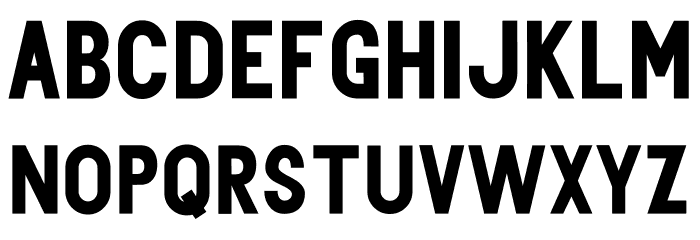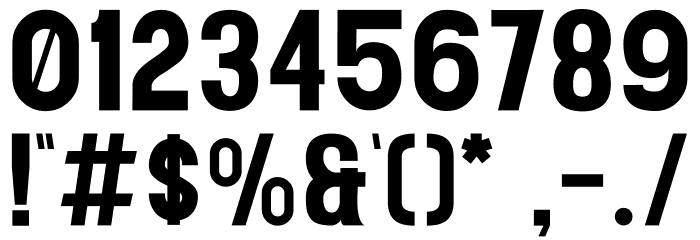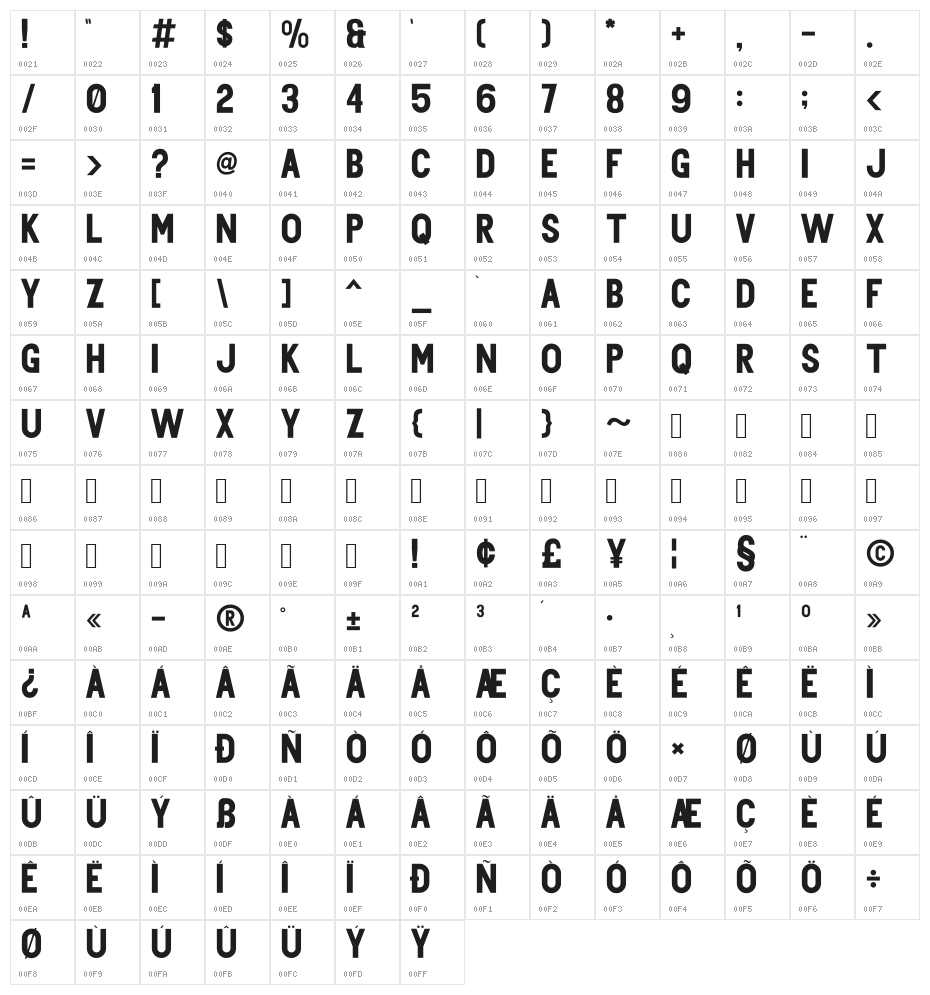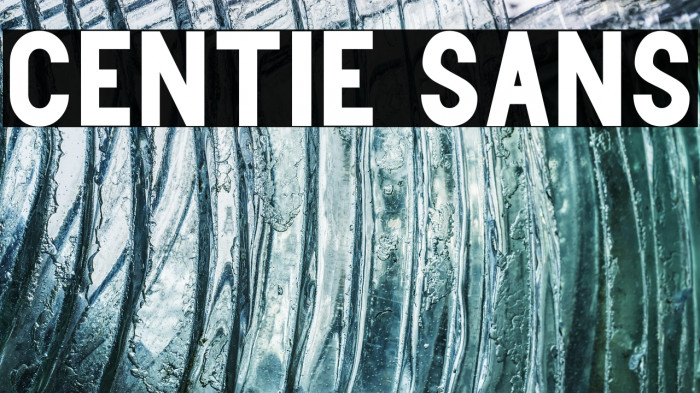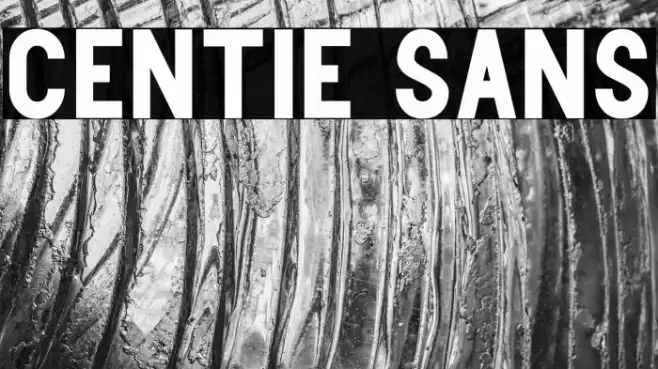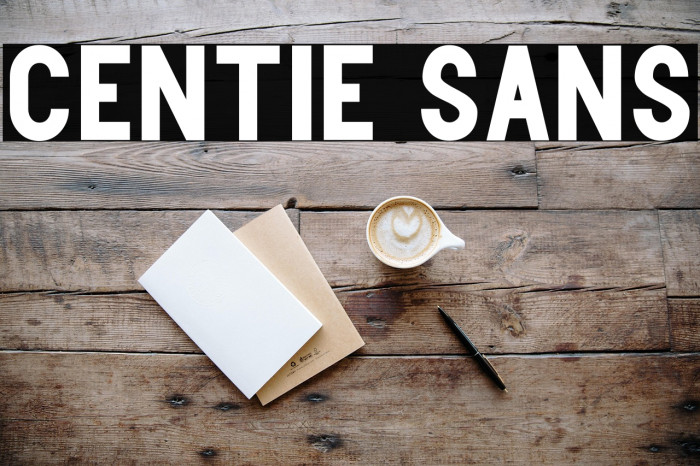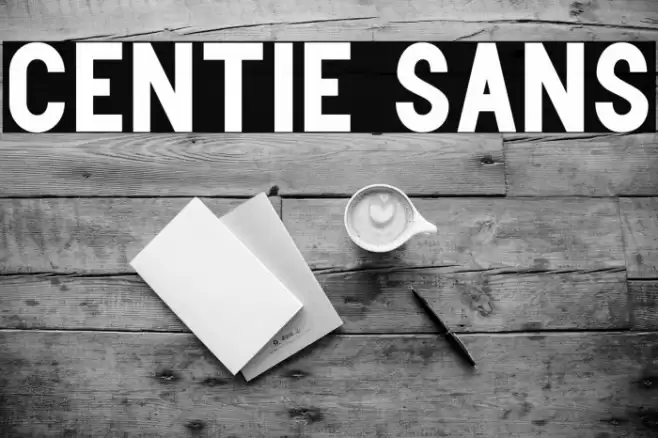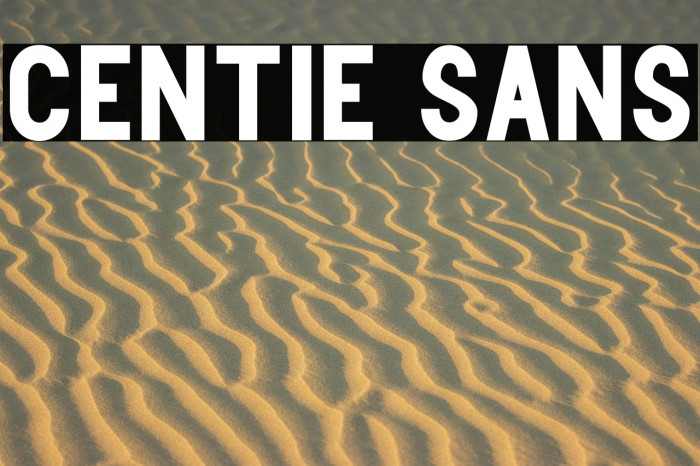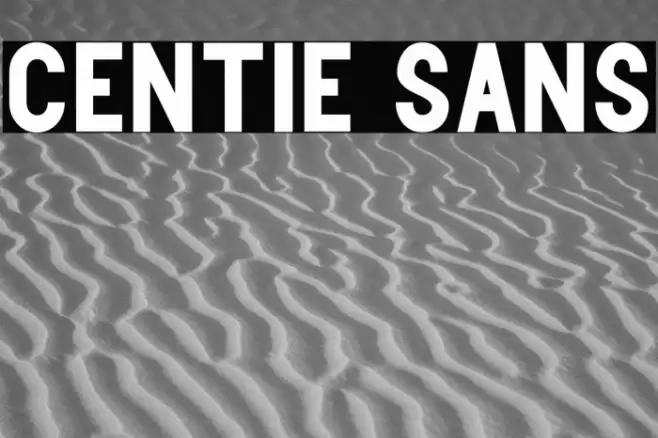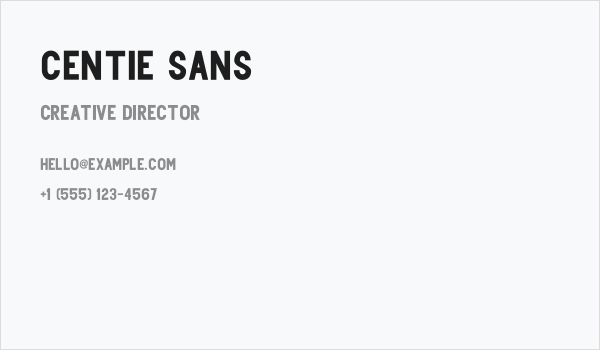
Centie Sans Font
This font features a bold and assertive sans-serif style, characterized by its strong geometric shapes and uniform stroke widths. The uppercase letters are robust and commanding, with a modern aesthetic that emphasizes clarity and impact. The numerals are equally bold, ensuring readability and consistency across various applications. Special characters are designed with the same boldness, maintaining a cohesive look throughout. This font is ideal for projects that require a strong visual presence and clear communication.
A bold, geometric sans-serif font with strong, uniform strokes.
- Proposed Projects: Perfect for branding, advertising, headlines, and signage where a strong, modern look is desired.
- Use Case: Headlines, Logos, Signage